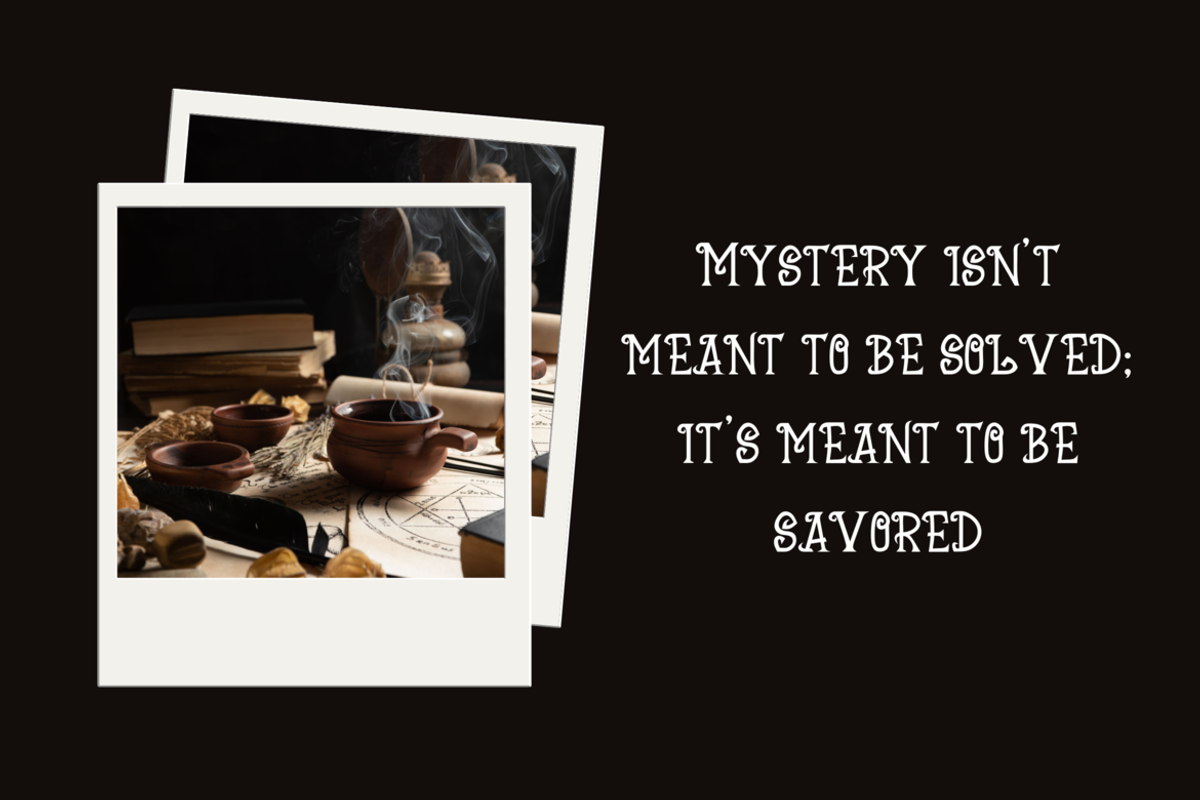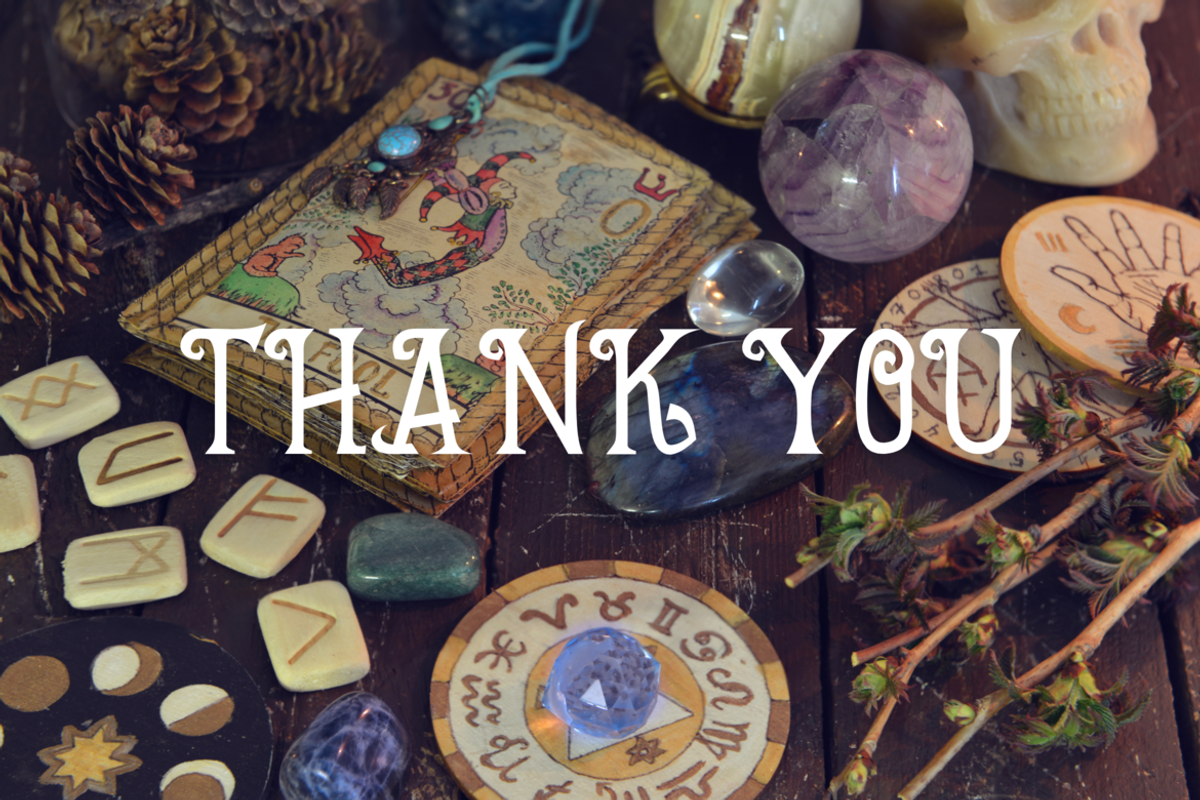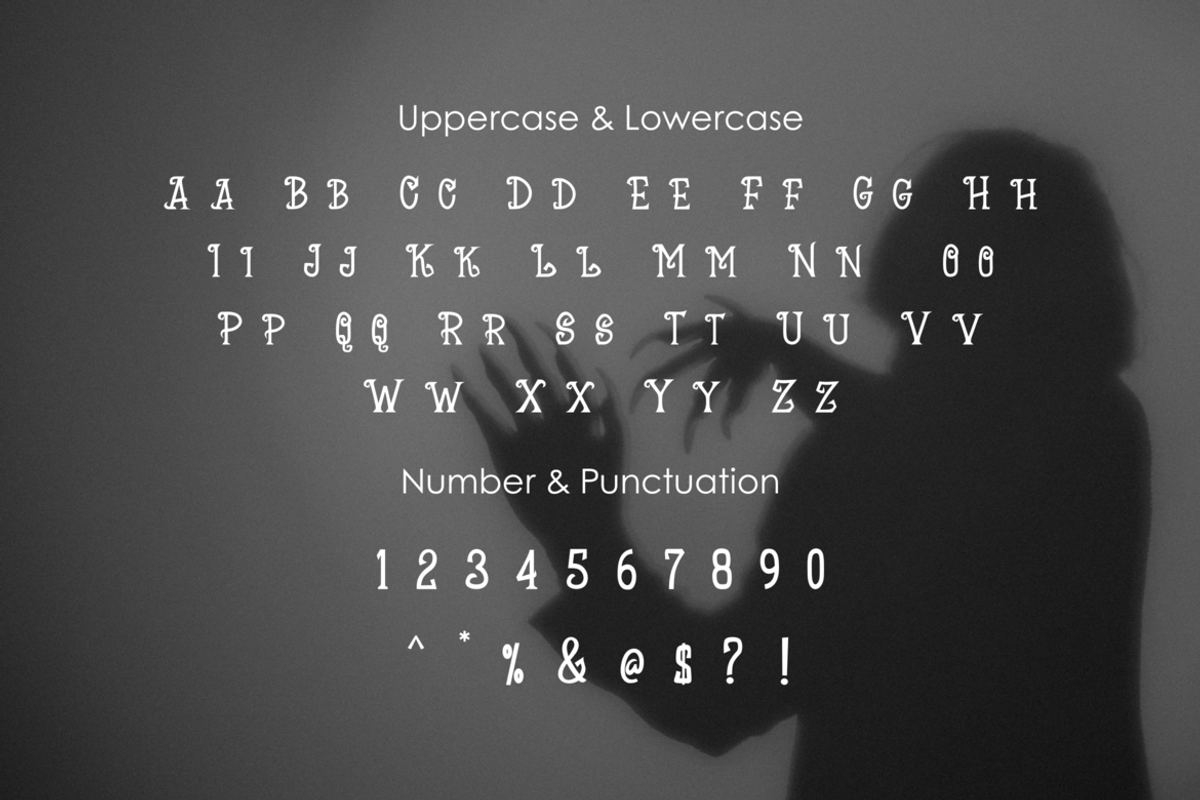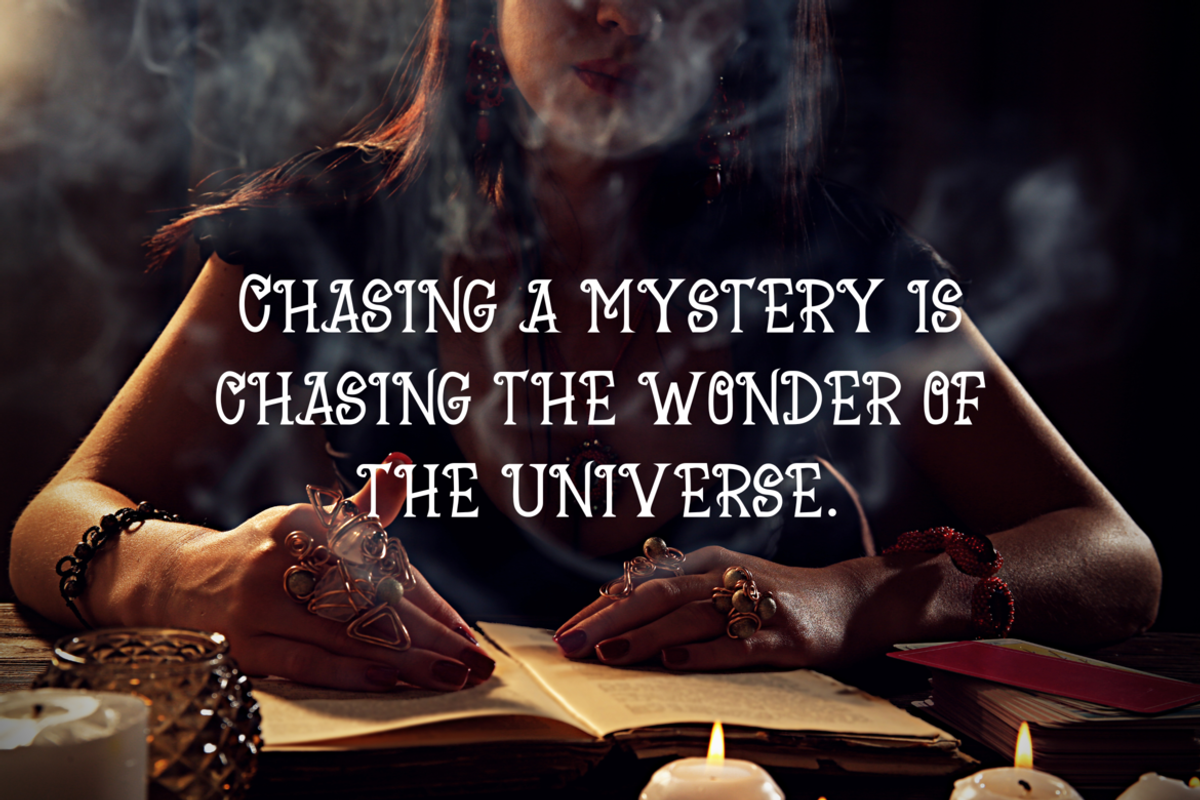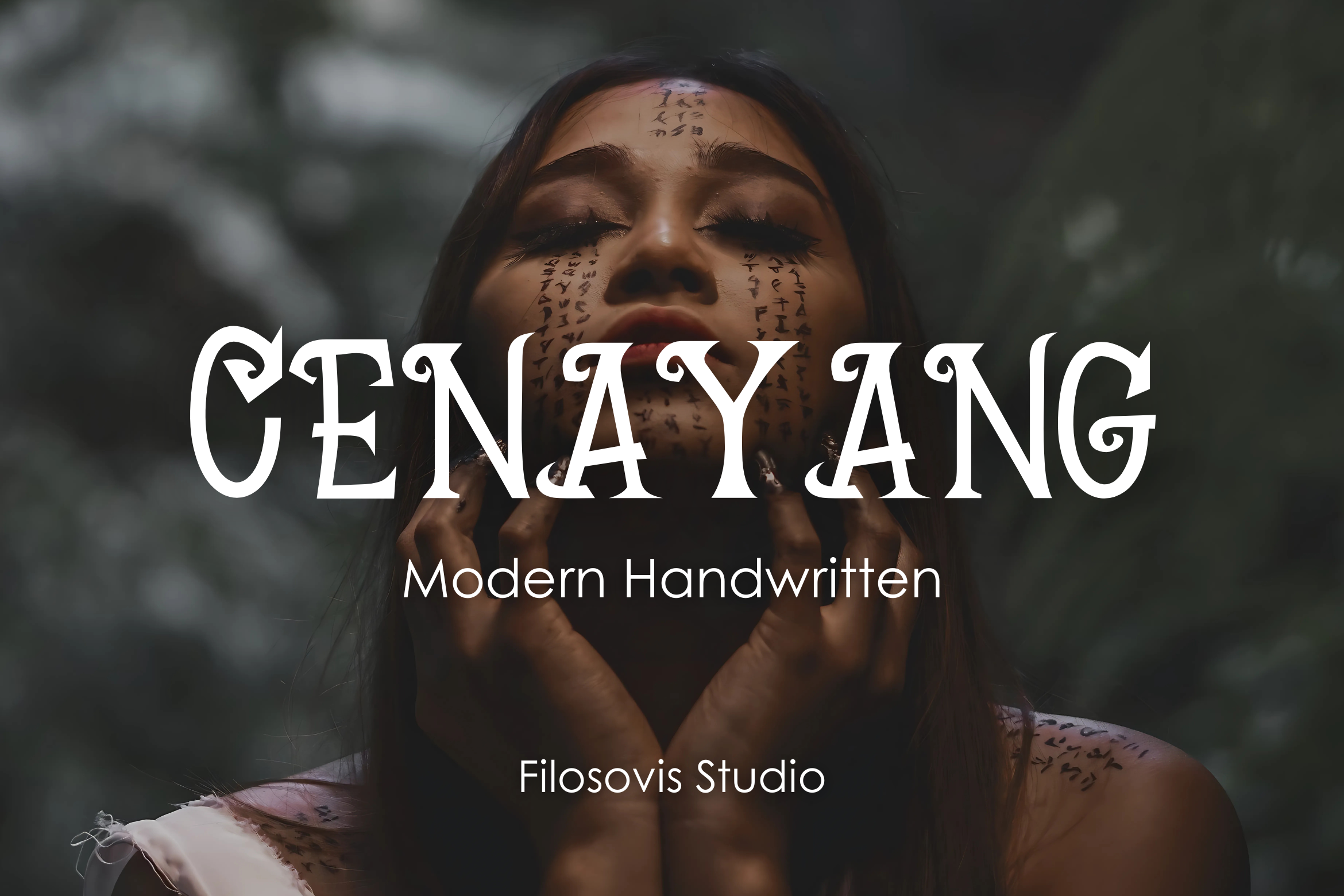
Cenayang | Handwritten Font
For your creative project, use the Cenayang-themed handwritten font. Handwritten font script is appropriate for every kind of design you produce, including greeting cards, posters, logos, and branding.